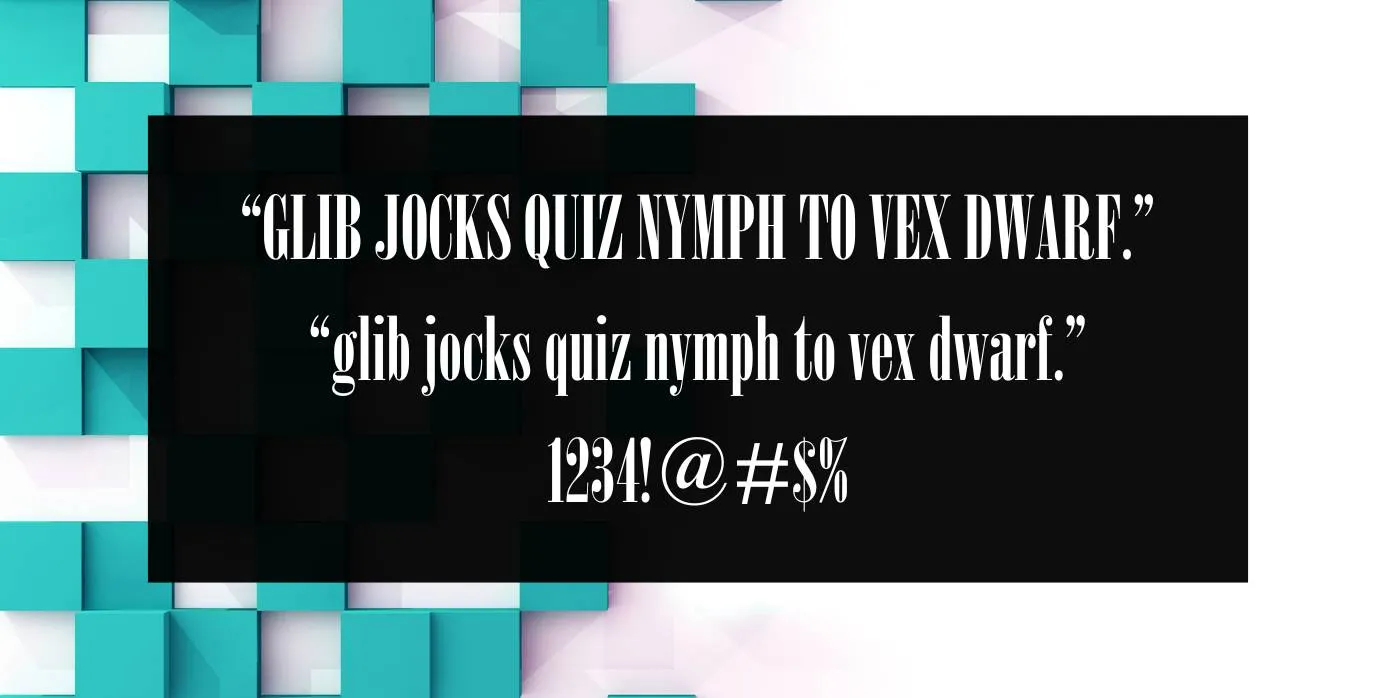
Nirvana Font is a display typeface created by Giambattista Bodoni. This typeface is based on a Serif font Poster Bodoni Font designed by Giambattista Bodoni in 1798. This typeface is very delicate and stylish due to its semicircular form and fashionable look.
This font family comes in solo weight and contains uppercase, numbers, lowercase, punctuations, and special characters. It has a stylish and trendy feature that makes it perfect for logos and titles.
Due to its stylish and contemporary styles, it can be used in the creation of modern logos, titles, captions, headlines, posters, banners, ads, tags, tickets, documents, articles, official and non-official presentations, and many other display elements.
Nirvana Font Structure
What type of font is Nirvana Font?
This typeface is based on a Serif font Poster Bodoni Font designed by Giambattista Bodoni in 1798.
What is a similar font to Nirvana Font?
Poster Bodoni Font and Sardonyx Font are similar to this font family, you can these fonts in your project as an alternative to this font.
Is Nirvana Font good for body text?
Yes, this font family is best for body text, its clean and soft look makes a project legible, clear, and understandable. It can make your project remarkable for the audience.